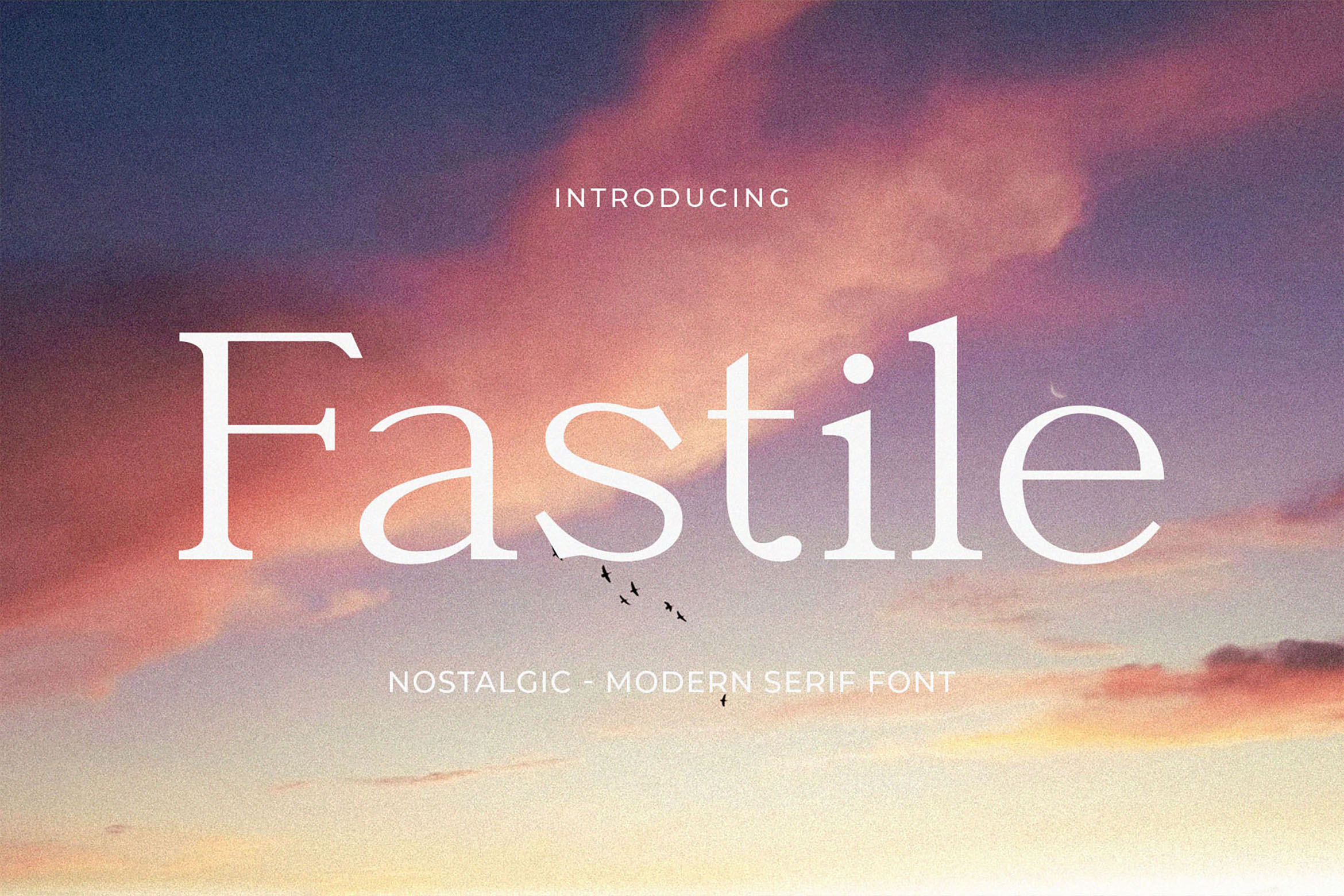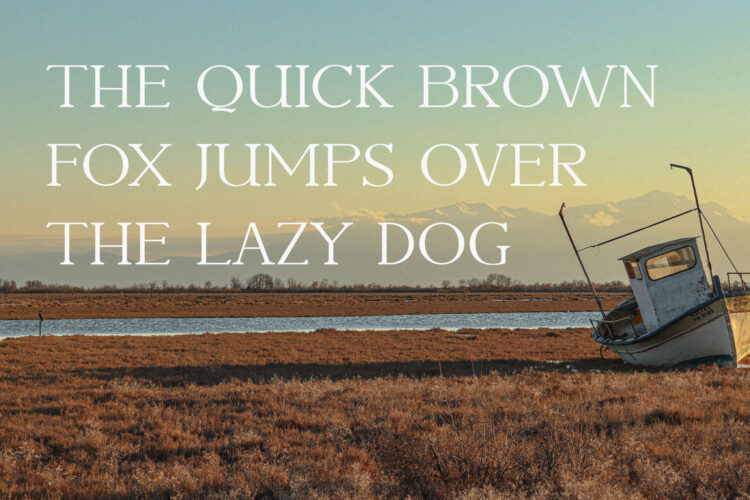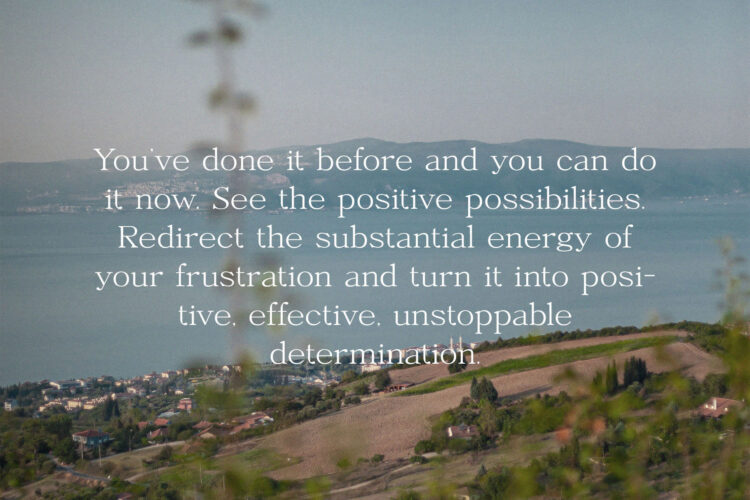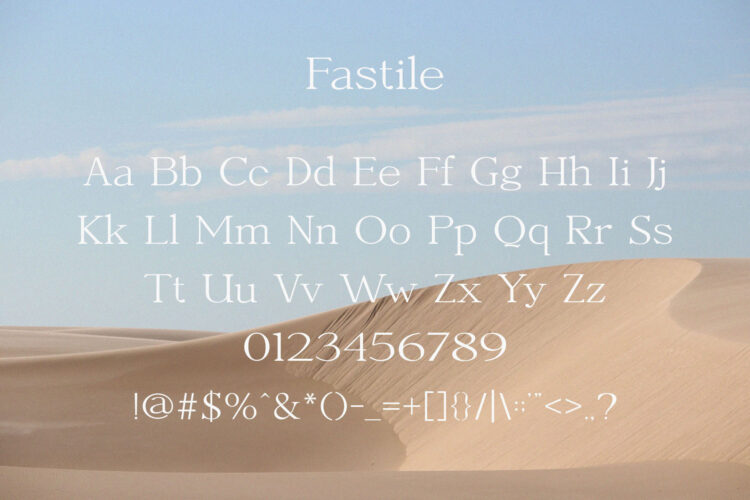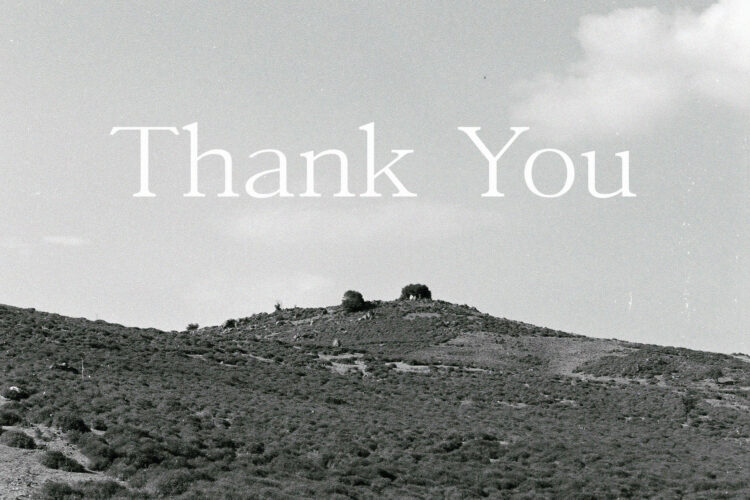
Introducing our new Fastile, modern serif font with elegant style this is perfect for branding, logos, invitation, magazines, product packaging and more.
Fastile – Nostalgic Serif Font